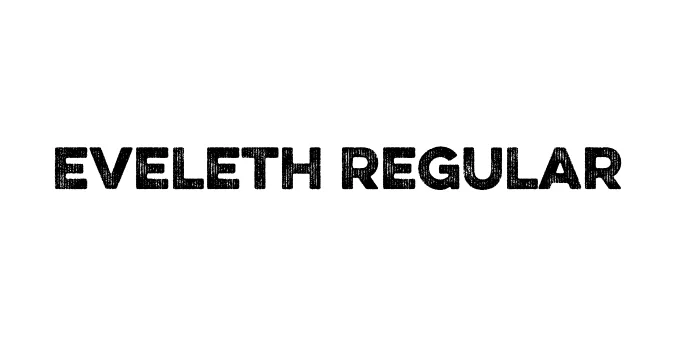
Eveleth Regular
Designed by Ryan Martinson
| Category | Display / Letterpress |
| Designer | Ryan Martinson |
Eveleth Regular is a distinguished member of the Eveleth family, a high-resolution letterpress font system created by Yellow Design Studio. It is celebrated for its exceptional realism and vintage charm, meticulously capturing the imperfections and textures of authentic wood-block printing. The Regular weight offers a balanced, weathered aesthetic that provides a tactile, handcrafted feel to any design project, making it a standout choice for those seeking a heritage-inspired look.
This typeface is highly versatile, featuring an extensive character set that includes unique icons, shapes, and emblems designed to complement the typography. Its sophisticated distressed texture remains sharp even at large sizes, ensuring that the rustic character is preserved across various media. Whether used for bold headlines or intricate branding elements, Eveleth Regular brings a sense of history and craftsmanship to modern digital environments.
Eveleth Regular Best Uses
Ideal for creating authentic, heritage-inspired logos and brand identities.
Perfect for organic or craft product labels requiring a tactile, premium feel.
Excellent for t-shirt designs and vintage-style fashion graphics.
Highly effective for eye-catching posters, signage, and social media headers.
Great for magazine titles and book covers that need a rugged, classic appearance.